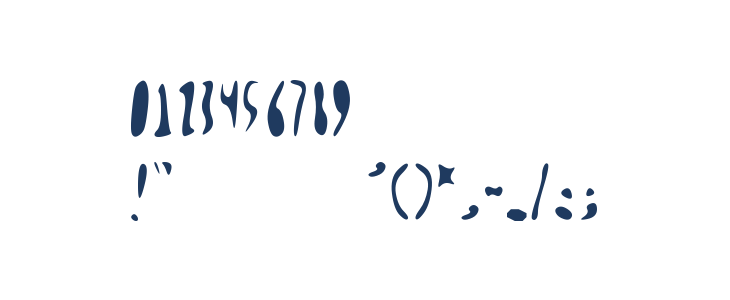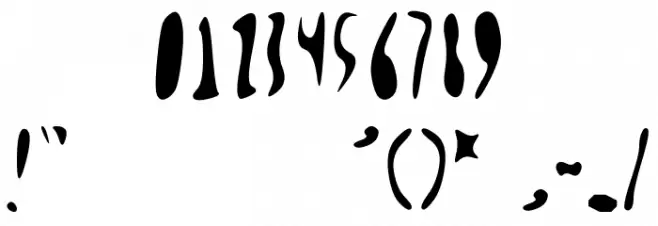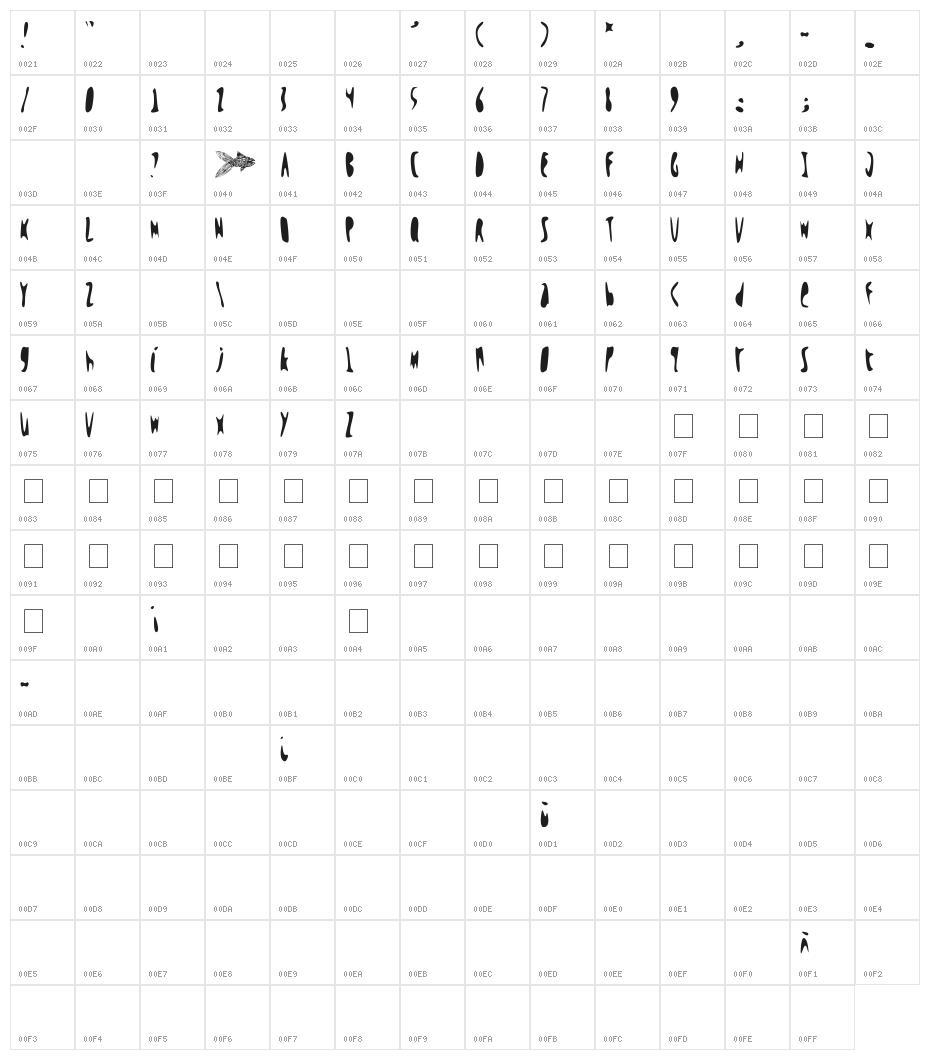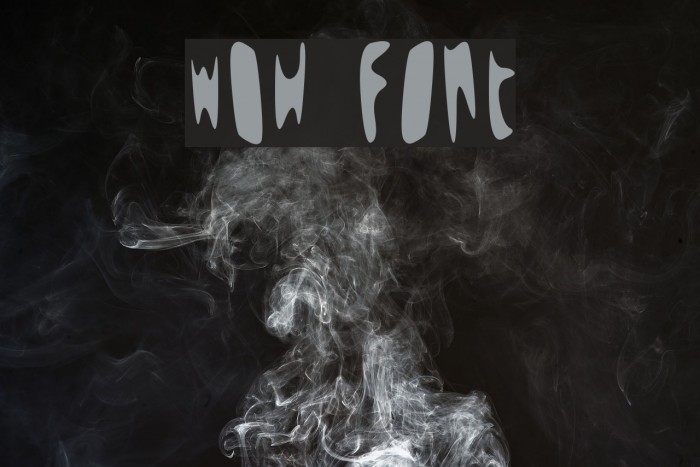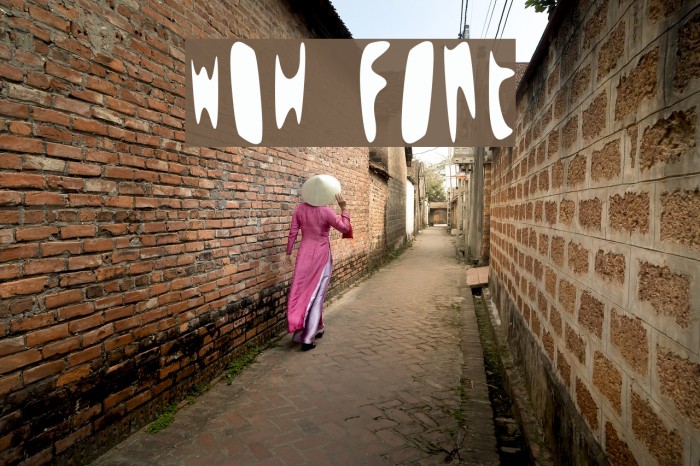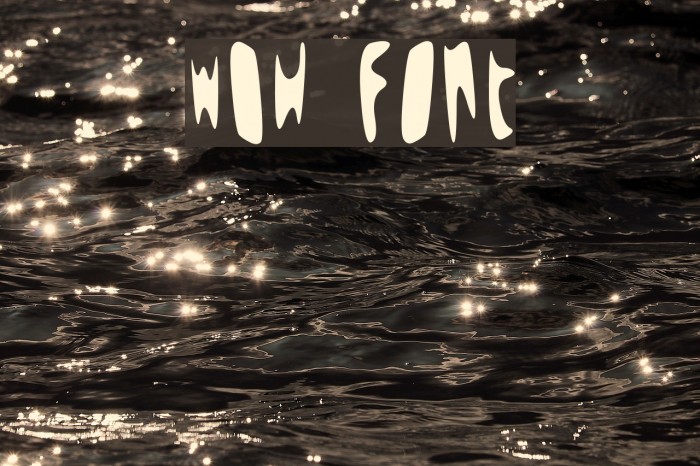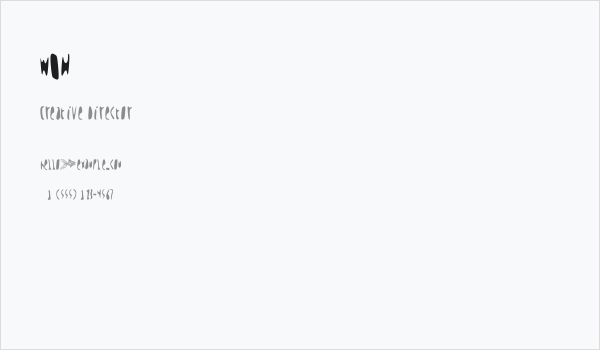
WOH Font
WOH Description
This font features a highly stylized and artistic design, characterized by its bold, irregular shapes and dramatic flair. The letters have a whimsical, almost playful quality, with exaggerated curves and varying thicknesses that create a sense of movement and energy. The uppercase and lowercase letters maintain a consistent style, while the numbers and special characters complement the overall aesthetic. This font's unique appearance makes it stand out, offering a creative and unconventional option for various design projects.
| Proposed Projects | Ideal for creative projects such as posters, album covers, or branding that seeks to convey a sense of whimsy and artistic flair. |